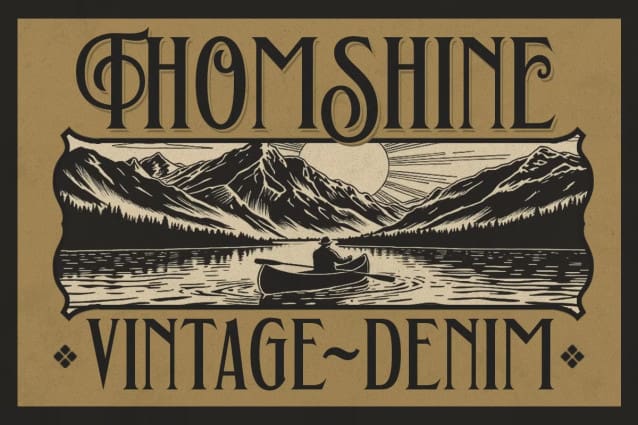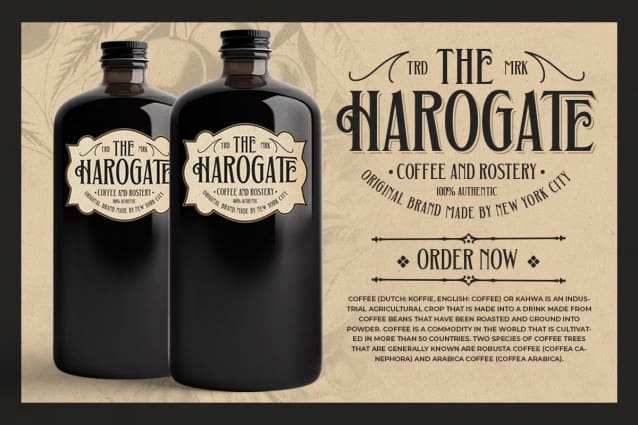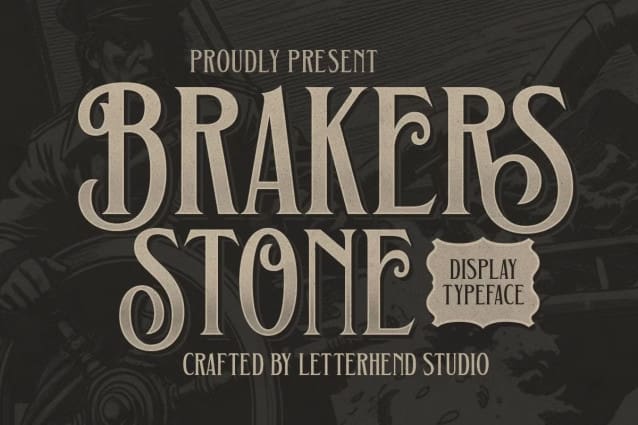
Brakers Stone Font
Brakers Stone Font – Perfect for creating a vintage design, BrakersStone combines bold letterforms with decorative elements to deliver a timeless aesthetic. Whether for packaging, advertising, or apparel designs, this typeface brings a unique and memorable style that leaves a lasting impression.